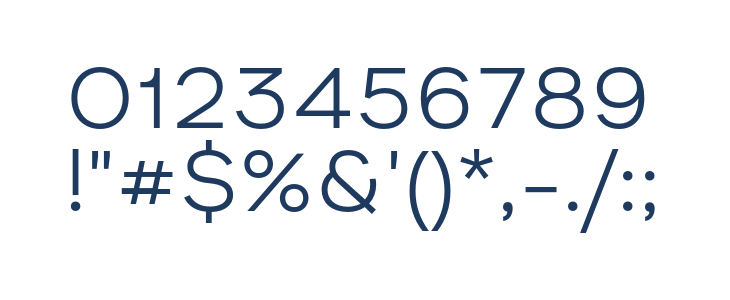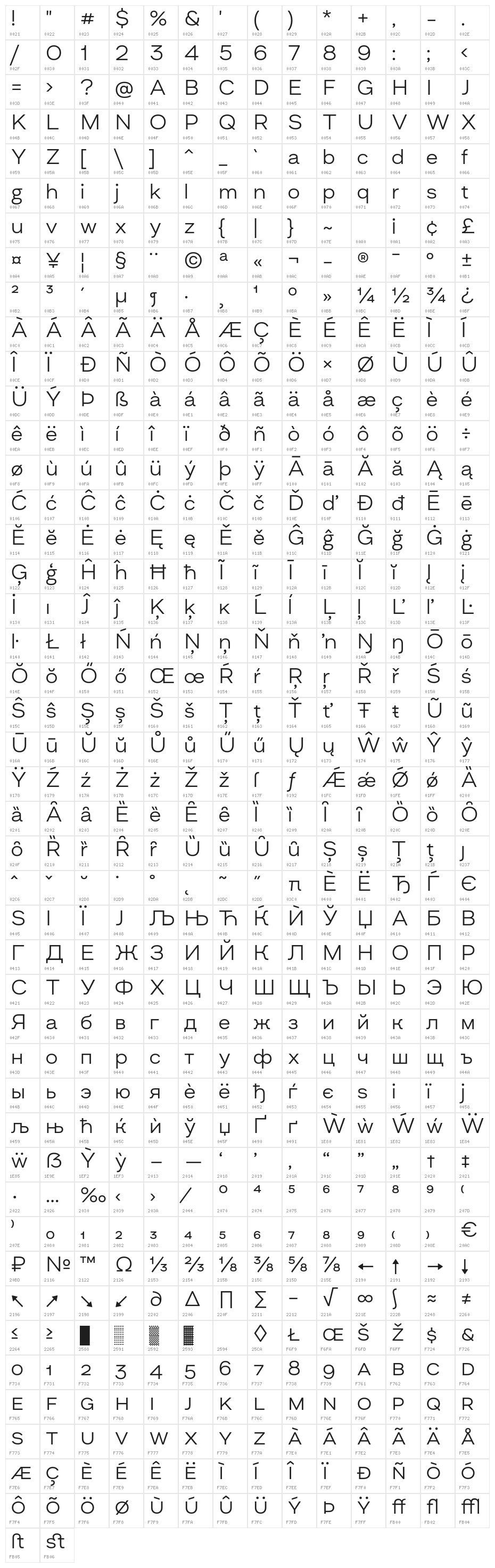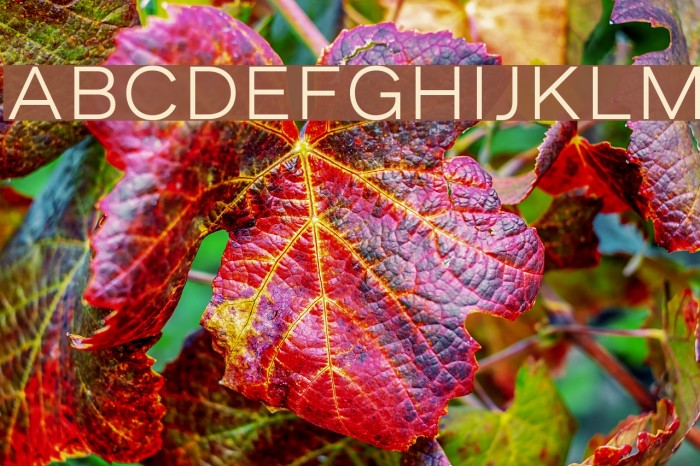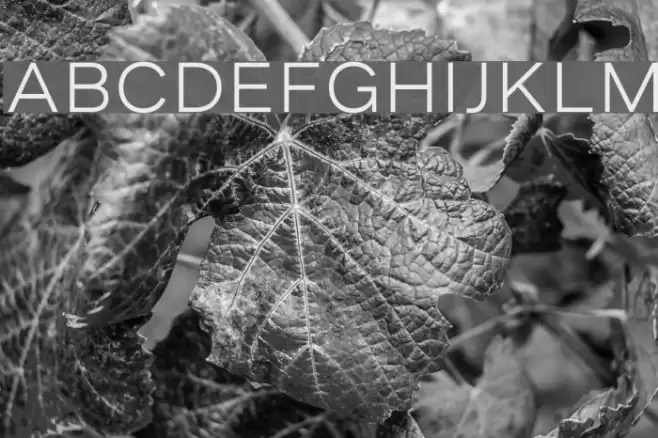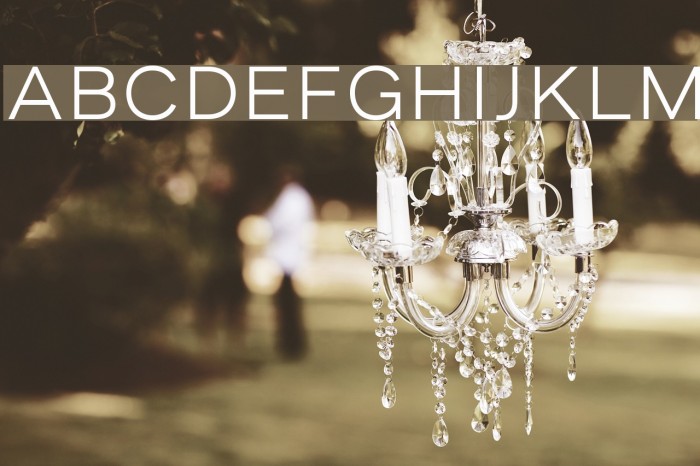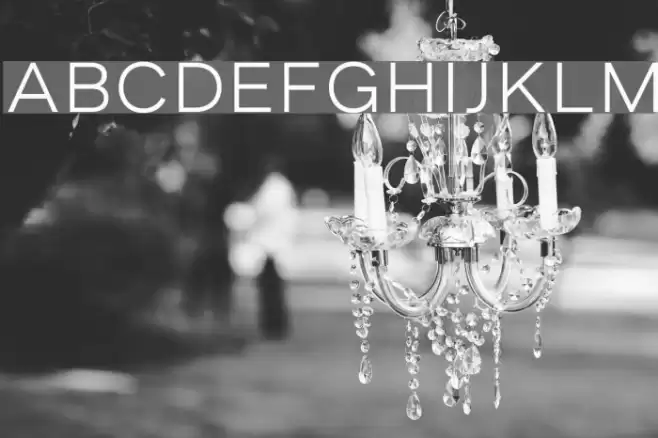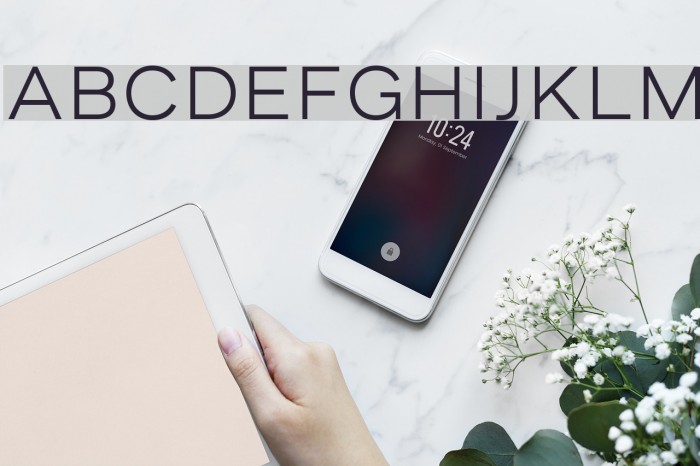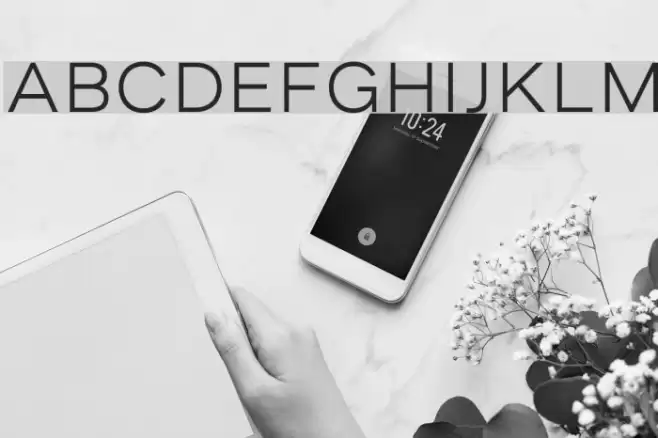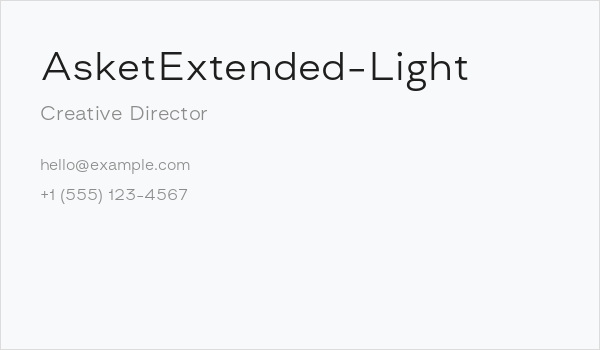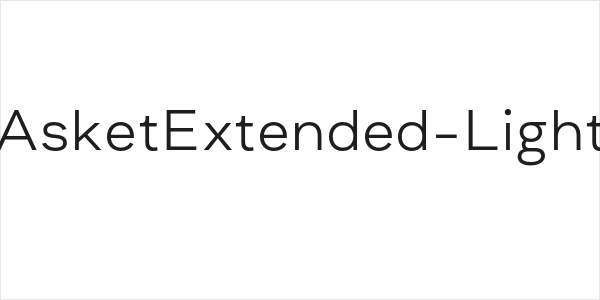
AsketExtended-Light Font
AsketExtended-Light Description
This font features a clean and modern sans-serif design with a light weight, making it ideal for minimalist and contemporary projects. The characters are evenly spaced, contributing to a balanced and harmonious appearance. The uppercase and lowercase letters are well-proportioned, with a slight geometric influence that adds to its sleek aesthetic. The numerals and special characters maintain the same clarity and simplicity, ensuring legibility across various applications. This font's extended width provides a spacious feel, enhancing readability without compromising its stylish look.